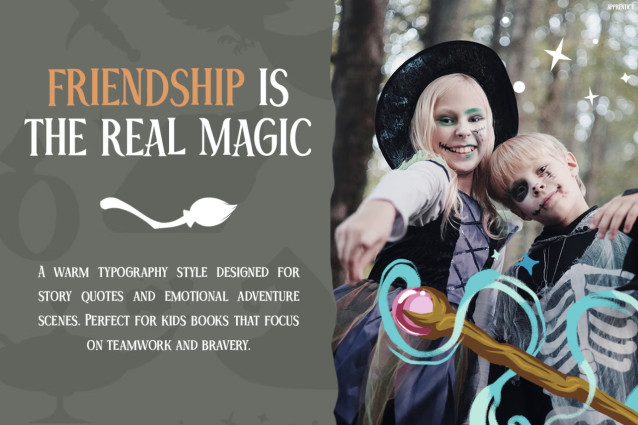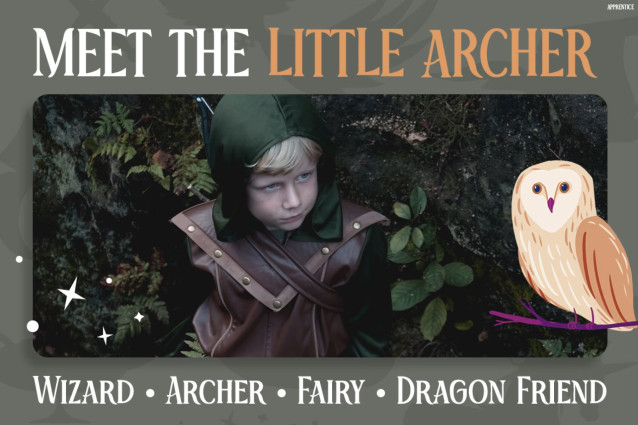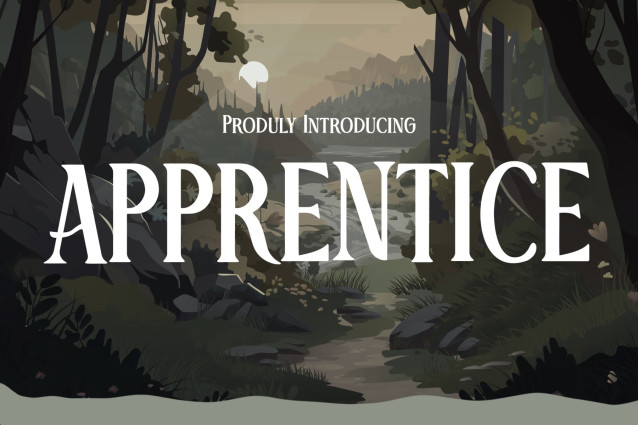
Apprentice Font
Apprentice – Magical Fantasy Kids Font
Kids Font Apprentice is a magical display font inspired by fantasy adventures, enchanted forests, and legendary storybooks. Designed with sharp medieval-style letterforms and playful fantasy energy, this font instantly creates a mysterious and imaginative atmosphere. Every character feels bold, artistic, and full of adventure. Moreover, the unique serif details give Apprentice a classic fantasy aesthetic while still keeping the font readable and fun for modern creative projects. Its strong visual style makes titles stand out beautifully across posters, book covers, games, and themed branding. In addition, the handcrafted fantasy appearance adds emotional depth and cinematic charm to every design.